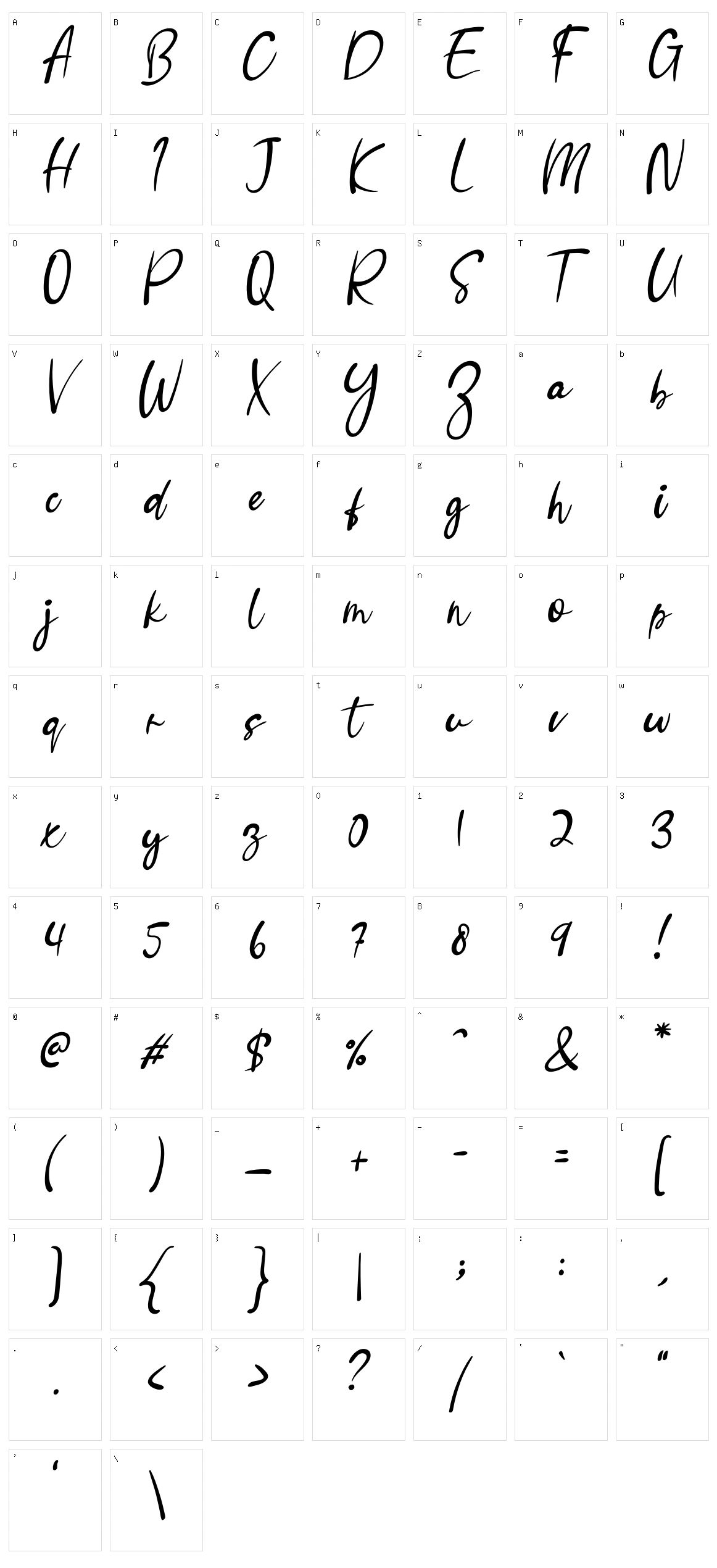
The free font Bellmetta is carefully designed by Scratchones, showcasing a thoughtful balance of creativity and usability and falls under the Script font style. When you download the ZIP file, it contains only 136.75 KB of font files, making it lightweight and quick to download. Please review the license details below to understand permitted usage and distribution rights. If license information is not available, we recommend using this font for personal projects only or contacting the author directly for commercial usage permissions.